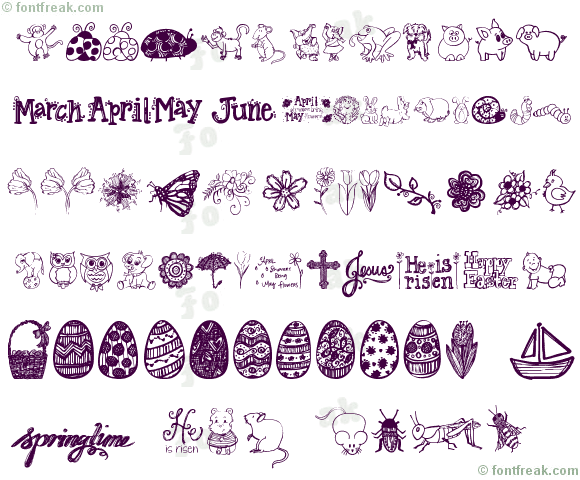
The Janda Spring Doodles font by Kimberly Geswein is a playful and whimsical decorative typeface that captures the essence of spring with its charming doodle-like elements. This font is categorized as a decorative type, featuring an array of delightful illustrations, including butterflies, flowers, and owls, seamlessly integrated into the letterforms. The visual characteristics include a light stroke weight and minimal contrast, which adds to the overall friendly and approachable aesthetic. The spacing is well-balanced, ensuring that each character is easily readable while maintaining a fun and organic flow.
Janda Spring Doodles is perfect for a variety of creative projects. It shines in applications such as wedding invitations, where its whimsical style can evoke a sense of joy and celebration. Additionally, it works wonderfully for children's book covers, providing a playful touch that appeals to young readers. Graphic designers can also utilize this font for crafting vibrant marketing materials, such as flyers for spring festivals or events. Furthermore, small business owners looking to add a unique flair to their brand can incorporate this font into their product packaging or promotional materials.
Targeting graphic designers, content creators, and small business owners, Janda Spring Doodles offers a unique way to express creativity and charm. Its free-to-download status makes it accessible for anyone looking to enhance their projects with a touch of whimsy.
What makes the Janda Spring Doodles font stand out is its ability to blend functionality with a playful spirit. It invites users to explore their creativity while providing an engaging visual experience. With the Janda Spring Doodles font free download, anyone can bring a refreshing and delightful aesthetic to their designs.